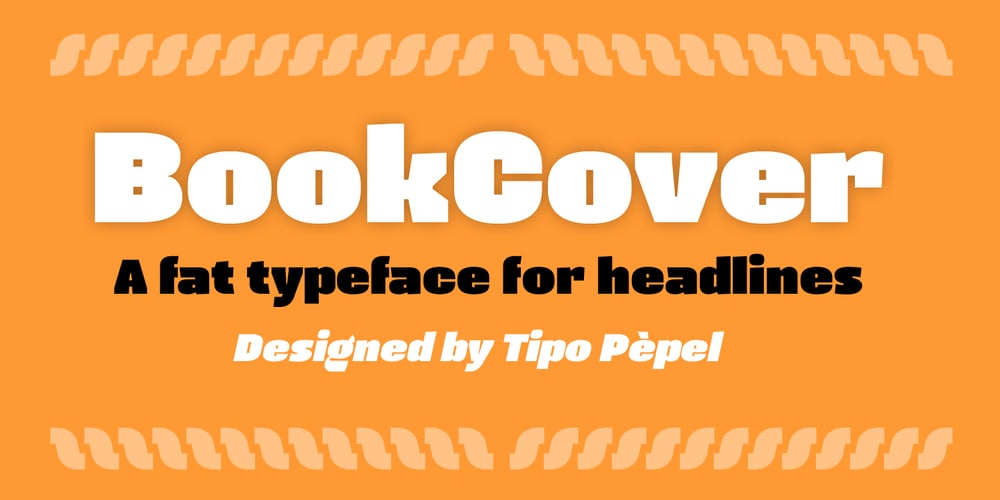
BookCover
BookCover font
BookCover Font Family was designed by Josep Patau Bellart and published by Tipo Pèpel. BookCover contains 2 styles and family package options. BookCover is a typeface designed with extreme spot to hit when used in headlines. The contrast of the outer curved shapes with internal rectangular counterforms that bring freshness to the results and a contemporary look. Contains an extensive character map for use in most Latin-based languages. BookCover will help you create eye-catching headlines, posters or book covers to name a few.